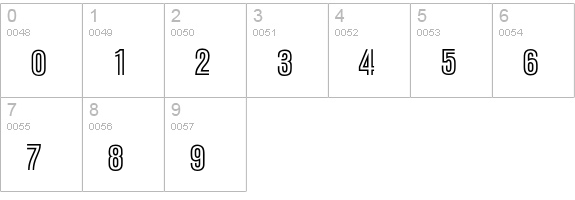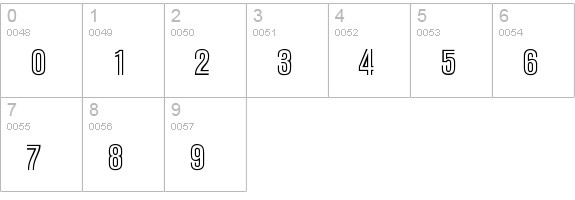
Introducing Timbre-Alternates, a captivating and versatile font that will effortlessly elevate your designs to new heights! This stunning typeface boasts a harmonious blend of elegance and modernity, making it the perfect choice for a wide range of creative projects. Timbre-Alternates is meticulously crafted with impeccable attention to detail, resulting in a font that exudes sophistication and professionalism. Its sleek lines and refined curves create a sense of fluidity, while its bold strokes add a touch of boldness and confidence. This font offers a plethora of alternate characters that can be easily accessed, allowing you to explore endless creative possibilities. From stylish ligatures to unique swashes, Timbre-Alternates provides an array of options to truly make your designs stand out from the crowd. But what sets Timbre-Alternates apart from the rest is its availability as a free download! Yes, you heard that right. This extraordinary font can be freely obtained from FontsMarket.com, ensuring that it's accessible to all designers, regardless of their budget. Whether you're working on branding projects, editorial designs, packaging, or any other creative endeavor, Timbre-Alternates will undoubtedly become your go-to font. Its versatility knows no bounds, effortlessly adapting to various design styles and themes. So why wait? Enhance your design toolkit with the captivating allure of Timbre-Alternates. Download it for free today at FontsMarket.com and unlock a world of endless typographic possibilities. Let your creativity soar and leave a lasting impression with the remarkable Timbre-Alternates font.